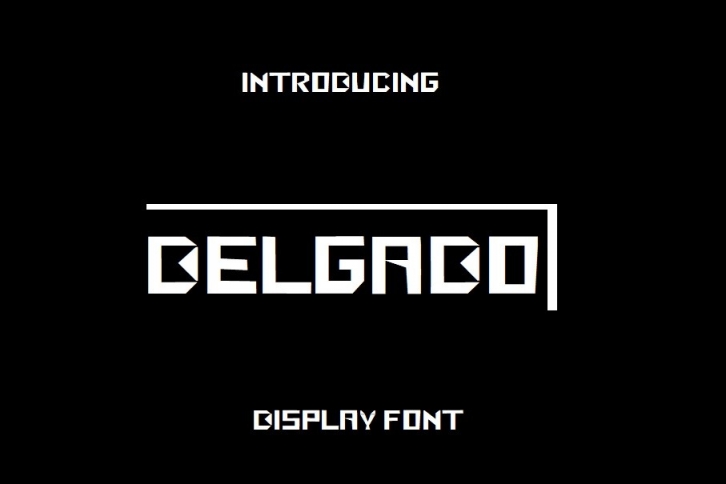
Delgado is a bold and squared looking display font. This cool display font offers a modern touch to your latest art projects. Use this font for your designs and explore its endless possibilities.